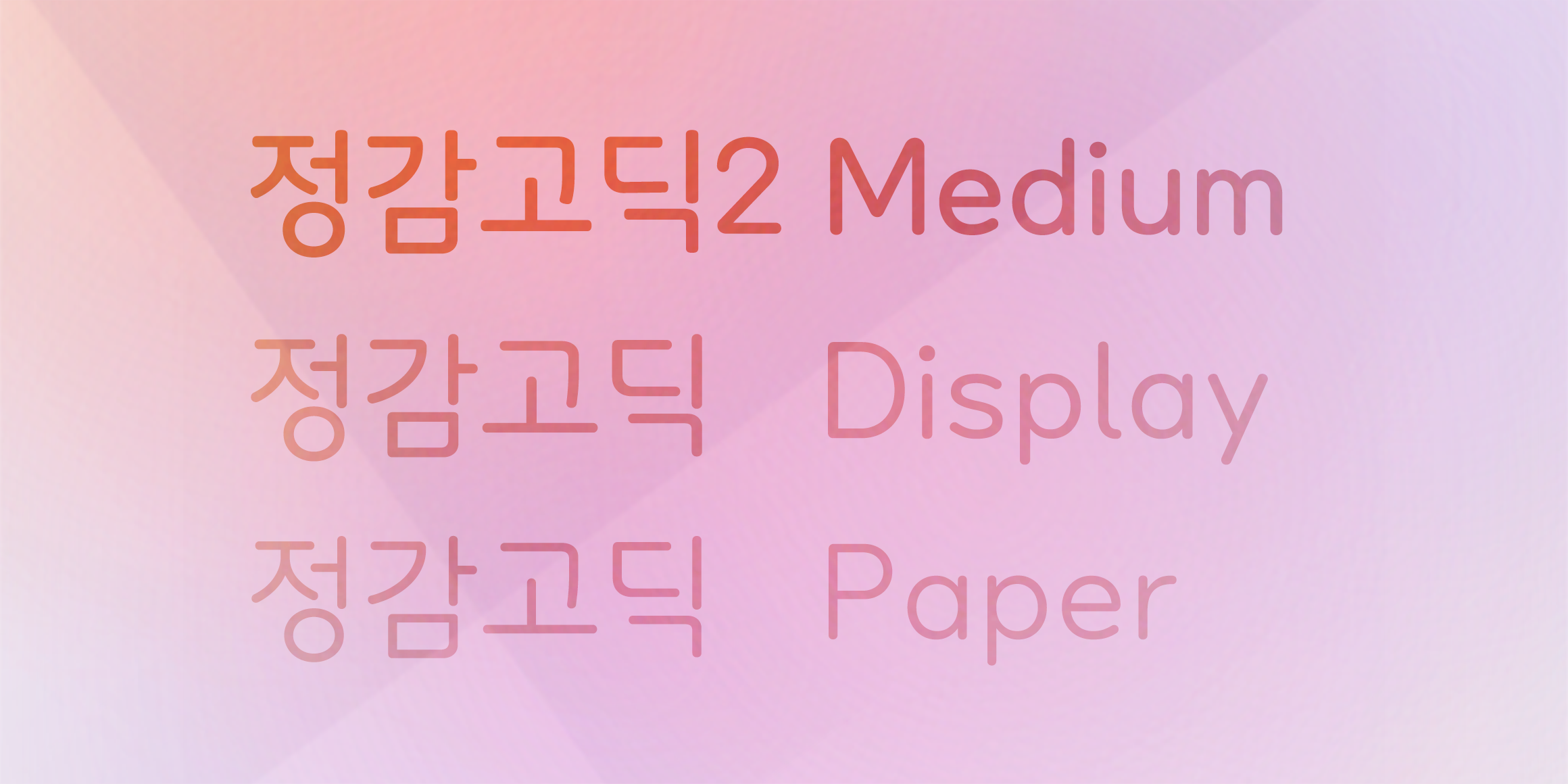
Jeonggam2
Jeonggam2 is a revised font of the existing Jeonggam.
It was added to include all 11,172 characters from the existing 2,350 characters in Korean.
There are also some changes in design, such as the hard finish of Hangeul and the shape of some component.
Thickness is currently only supported by medium, so you can also use it with the existing Jeonggam.